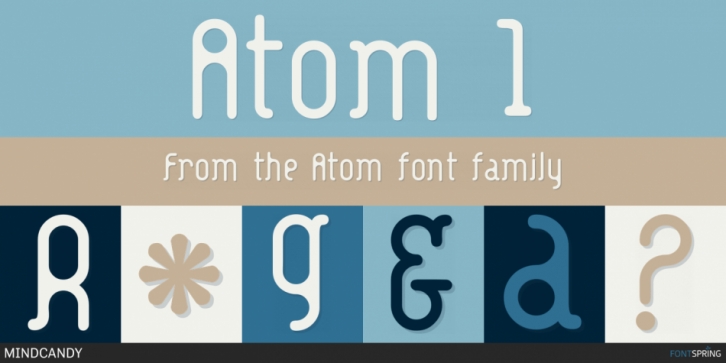
Designed by Jeff Gillen, Atom is a display sans font family. This typeface has two styles and was published by MINDCANDY.
Atom is a very unique, “post-modern”, sans-serif font, condensed font with characters unlike you have ever seen before. Guaranteed to grab the attention of your audience. The Atom font family contains 2 fonts - Atom 1 and Atom 2- each unique in their own design - but based on a similar design style, that makes them perfect for a complete font family. You have to see them to believe in how unique each design style is.
Atom 1·